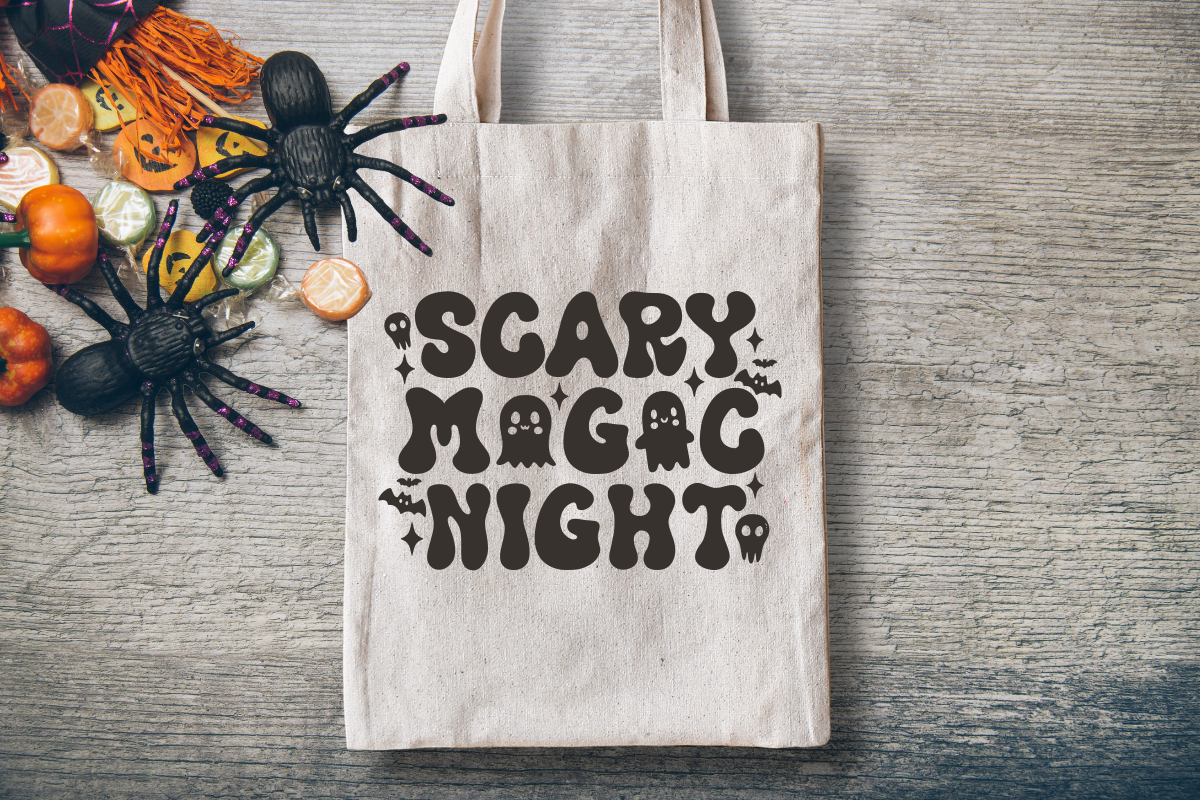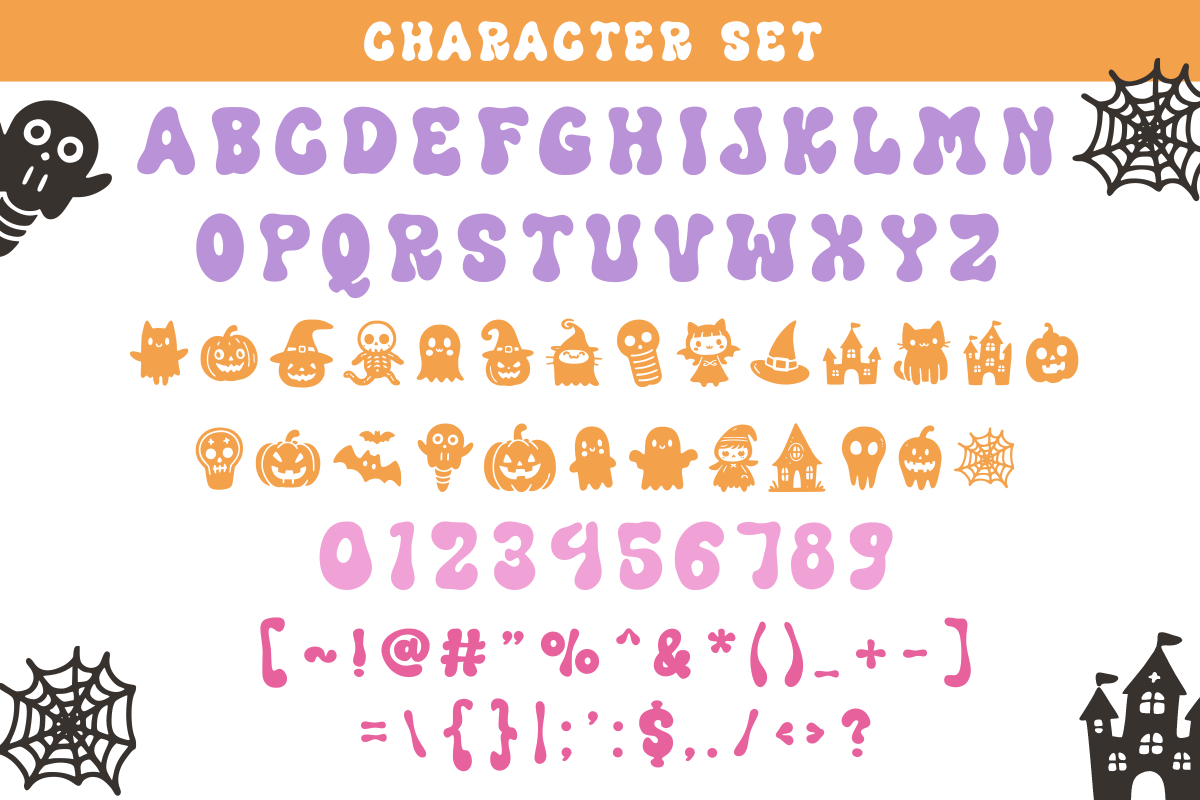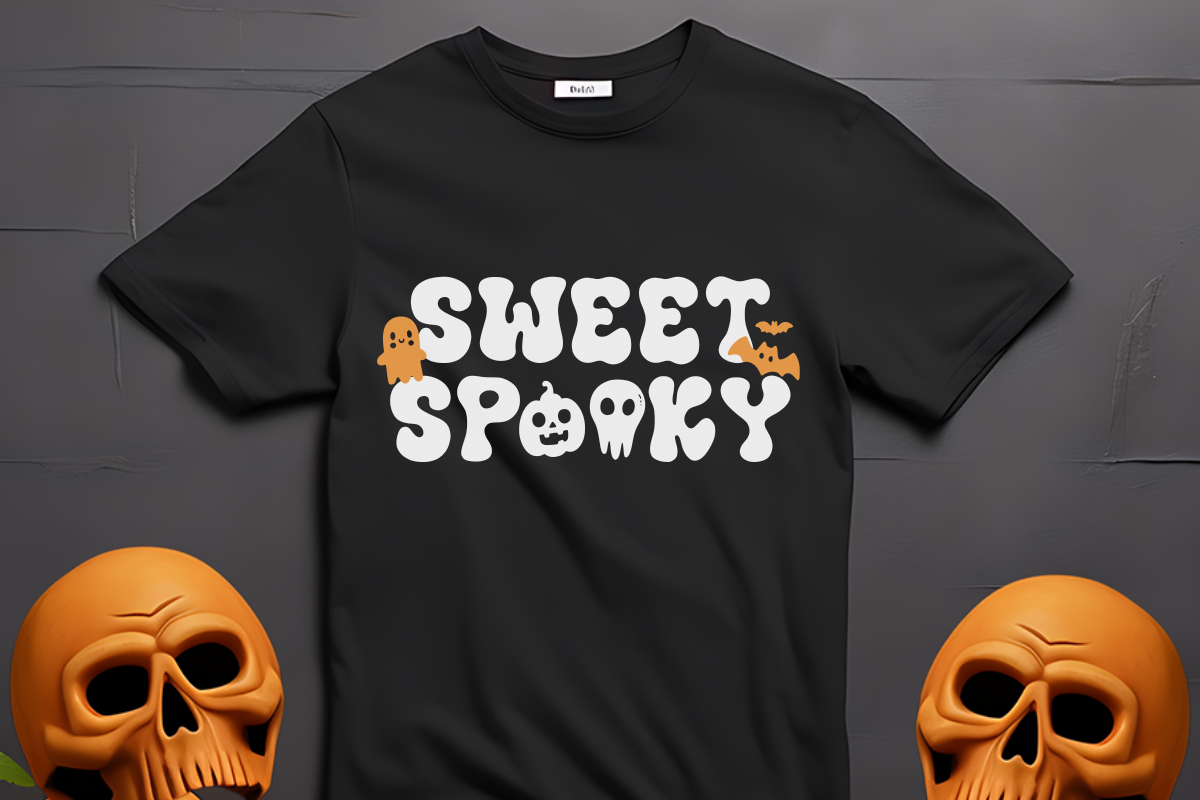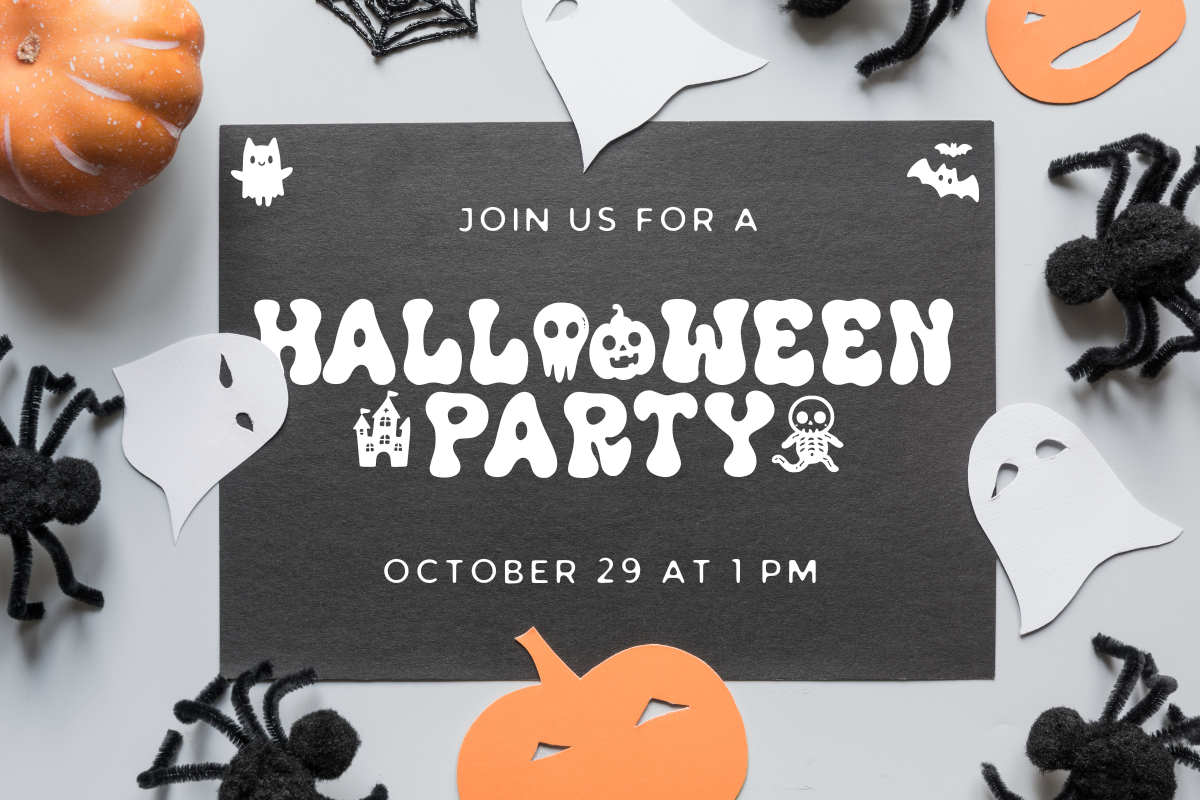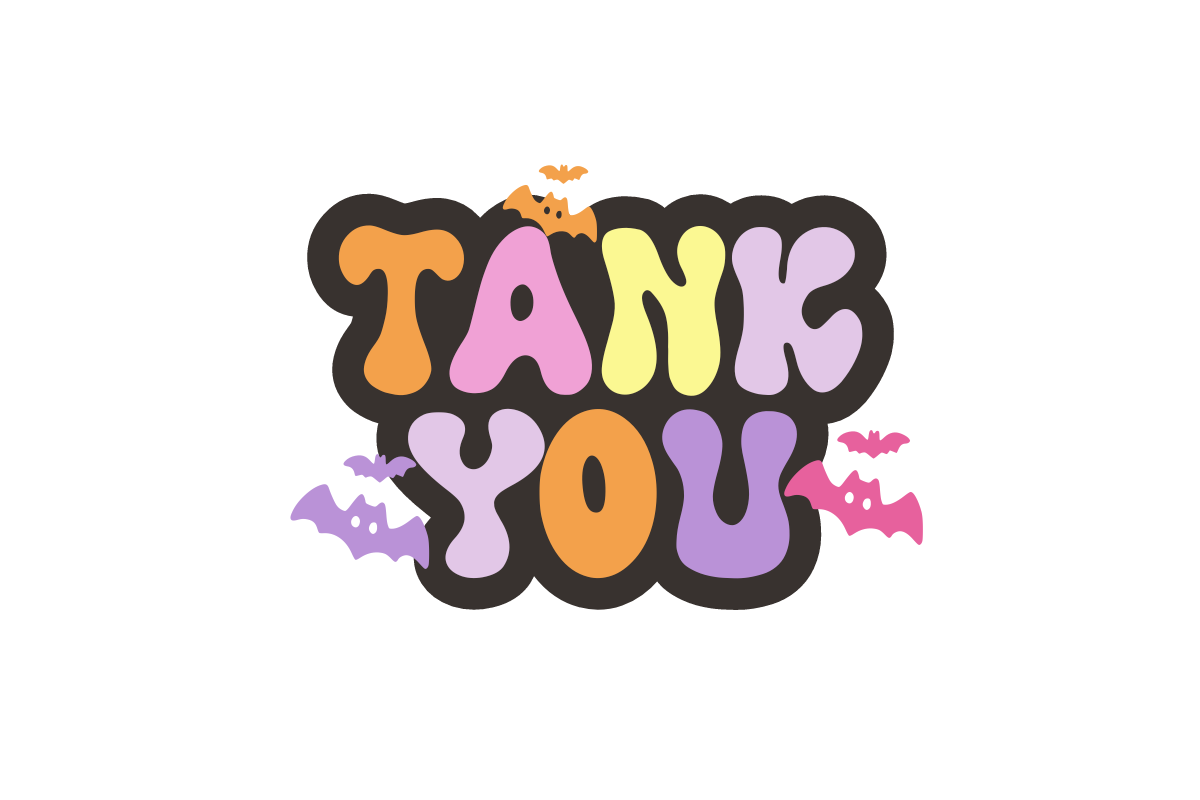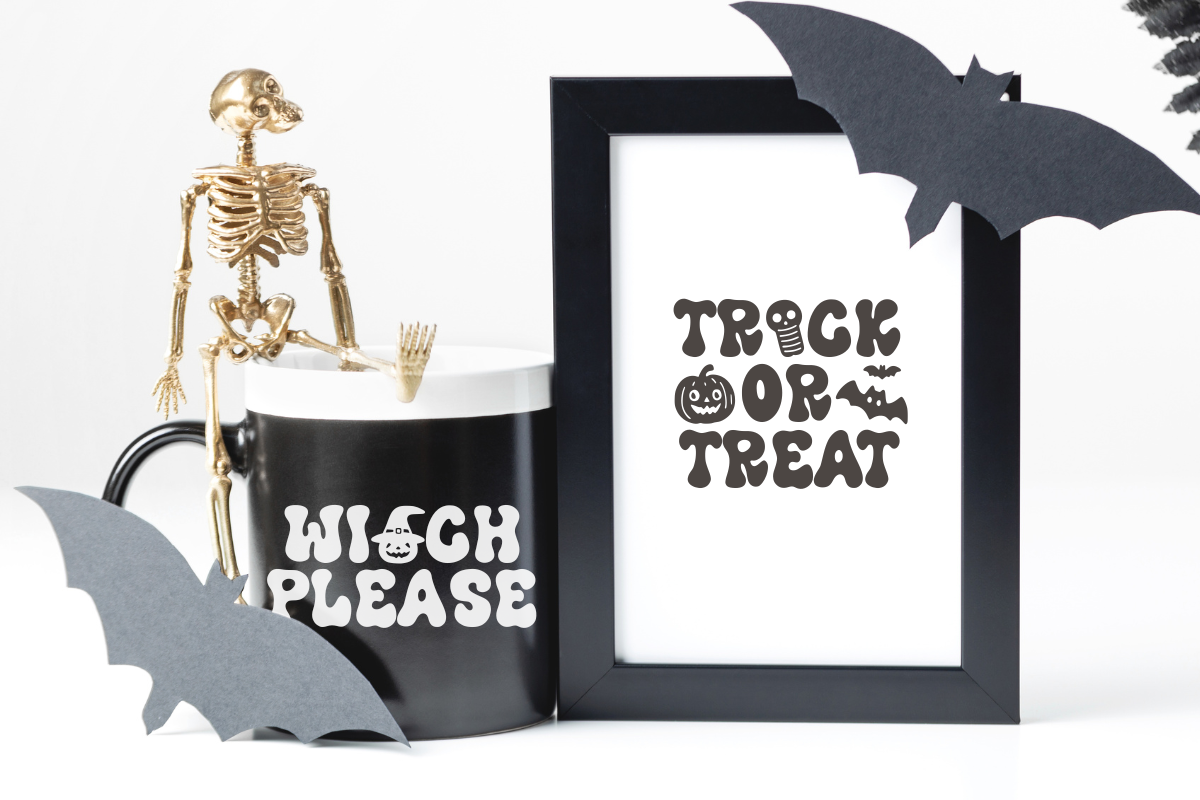
Halloween Dancing - Retro Halloween
Halloween Dancing is a vibrant, energetic, and incredibly fun retro Halloween font designed to bring a nostalgic and playful spirit to your festive projects. This bubbly display font features thick, rounded characters with a groovy 1970s rhythm, making it essential for Halloween party invitations, spooky branding, cheerful t-shirt designs, and eye-catching social media graphics. Its high-impact, chunky letterforms ensure it stands out as a powerful display typeface for headlines and product packaging, appealing to designers seeking a mix of vintage charm and modern "spooky-cute" aesthetics. Get your designs moving with the joyful energy of this bold retro font!